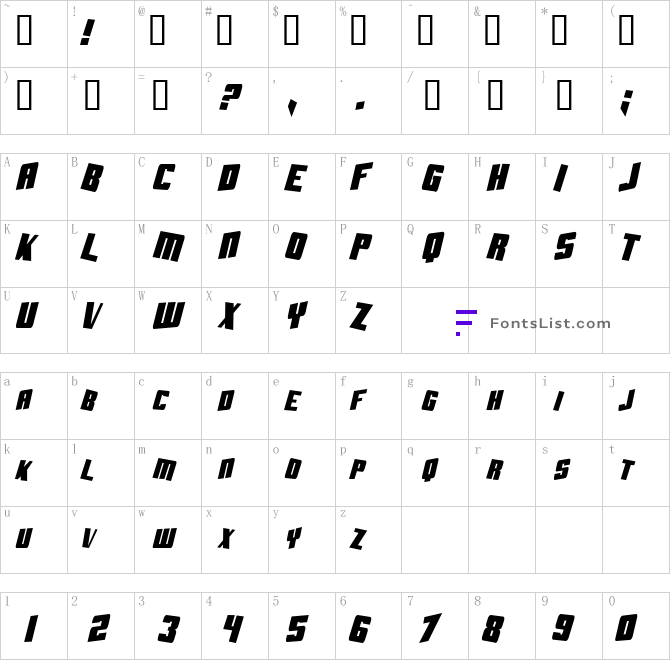
- Font Name:Aftershock Debris CondSolid
- Subfamily:Macromedia Fontographer 4.1 Aftershock Debris CondSolid Italic
- Full Name:Aftershock Debris CondSolid Italic
Aftershock-Debris-CondSolid-Italic.ttf is a very beautiful artistic font, Aftershock-Debris-CondSolid-Italic.ttf is widely used in the design and printing of various books and pictures,Aftershock-Debris-CondSolid-Italic.ttf has a strong visual impact,Aftershock-Debris-CondSolid-Italic.ttf is a commonly used font in newspapers, magazines and books, and is used in posters, e-commerce Poster design, store design, logo design, font design and other fields.Aftershock-Debris-CondSolid-Italic.